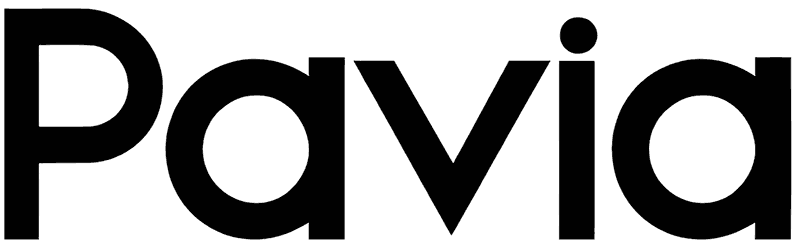
Pavia Font
It’s time to represent our wonderful sans serif font, Pavia. It has a thick, straight line characteristic and comes in two weights that are versatile and simple, but it doesn’t support most of the punctuation.
This font evokes a sporty, futuristic vibe and is ideal for display or text usage. You can use it to create a strong impact, perfect for apparel printing, social media, digital signage, science fiction designing, and quoting.